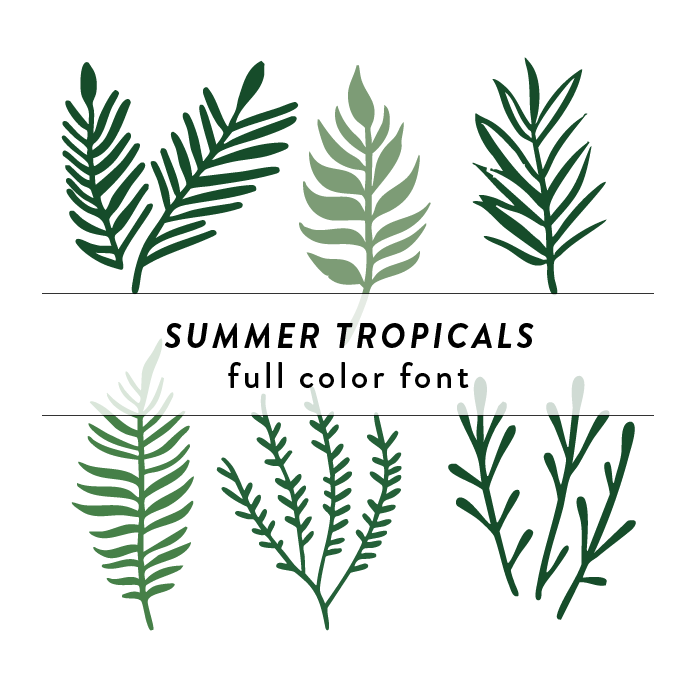
The Summer Tropicals Full Color Font features intricate tree branches and vibrant leaves, perfect for adding a touch of summer to any project. This craft font is ideal for creating eye-catching designs that capture the essence of the season. This font is a OTF craft font that will appear in color only when used with the silhouette software.